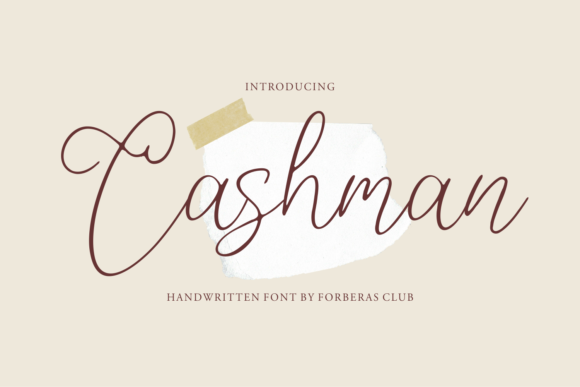
Introducing Cashman Font - A Touch of Romance for Every Design
Unleash the charm of Cashman Font, a script font that captures the essence of love, elegance, and timeless beauty. This delicately handwritten font will add a personal touch to your creative projects, transforming them into expressions of heartfelt emotions.
Picture this: Your wedding invitations adorned with the graceful strokes of Cashman Font, conveying the joy and excitement of your special day to your loved ones. Each letter dances gracefully on the page, inviting them to share in your happiness.
Envision your cards and designs infused with the romantic allure of Cashman Font. Its fluid curves and whimsical charm will captivate your audience, leaving them enchanted by the magic of your words. Whether it's a heartfelt message to a loved one or an invitation to a special event, Cashman Font will elevate your designs to new heights of elegance and sophistication.
Let your imagination soar with Cashman Font. Its versatility knows no bounds, making it the perfect companion for a wide range of creative endeavors. From wedding stationery to branding projects, from social media graphics to product packaging, Cashman Font will add a touch of magic to every design you create.
With Cashman Font, you'll have the power to create designs that evoke emotions, spark conversations, and leave a lasting impression. Its delicate strokes will weave a web of enchantment, drawing your audience into a world of love, joy, and endless possibilities.